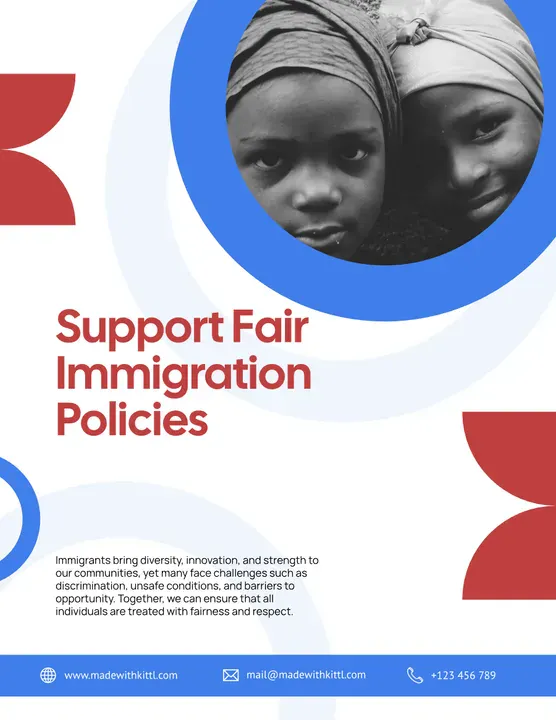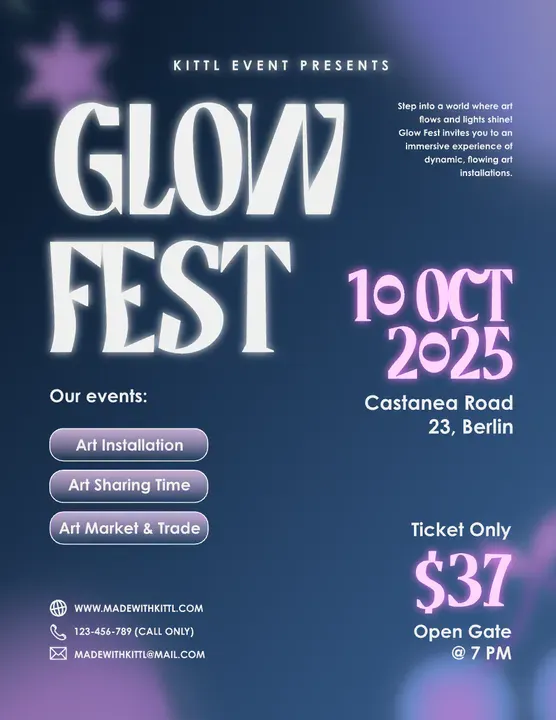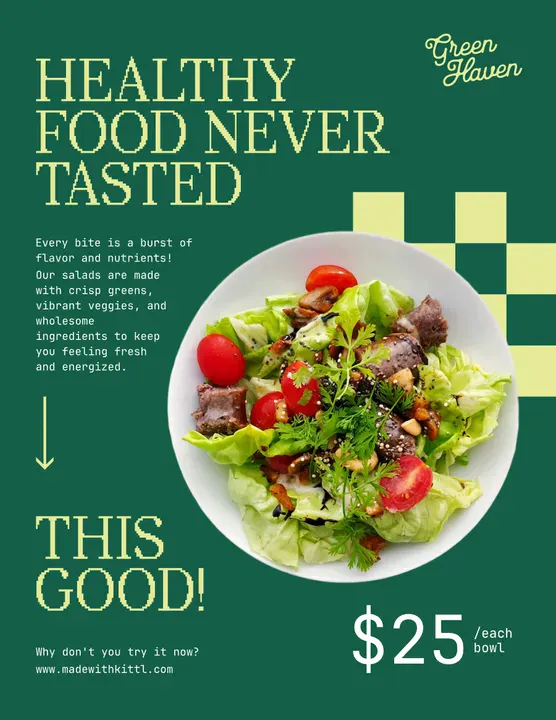
font pairing guide
Ever noticed how some designs just feel right, while others seem off, even if you cant quite put your finger on why?
A lot of that comes down to typography. Fonts do more than display words — they set the mood, create hierarchy, and shape how people perceive your message.
In fact, consistent typography can increase brand recognition by up to 80% according to Linearity. Thats huge! The fonts you choose arent just decorativetheyre a powerful tool that helps build trust, professionalism, and identity.
Think about it: a wedding invitation in Comic Sans wouldn’t exactly scream elegance. And a bold, heavy metal album cover using a delicate script or fun fonts? Probably not the best fit.
So if you’ve ever struggled with choosing the right fonts or doing your own calligraphy, don’t worry — you’re not alone. This guide will break down the basics of font pairing, show you what works (and what doesn’t), and give you practical tips to make your designs look polished every time.
Let’s jump in!
What is font pairing?
Font pairing is just matching fonts that look good together. It’s all about finding the right balance. Whether that’s mixing bold with simple, modern with classic, or even two totally different styles that just work. A good combo makes your design easy to read, eye-catching, and full of personality.
5 unlikely font pairings that shouldn’t work — but do
Think clashing styles can’t mix? These unexpected font combos aesthetic prove that contrast can be bold, stylish, and surprisingly effective.
01. Cal Sans Semibold, Manrope Regular, and PT Sans Regular
Cal Sans Semibold + Manrope Regular + PT Sans Regular font pair in a support fair immigration policies poster - Kittl
Cal Sans Semibold + Manrope Regular + PT Sans Regular is a killer combo for formal posters that need to be bold but easy to read.
Cal Sans Semibold’s sharp, structured letterforms make sure the headline grabs attention, while Manrope Regular keeps the body text smooth and effortless to scan. Then there’s PT Sans Regular, with its 40px line height, making sure everything has breathing room — because nobody can read a crammed-up text.
Set this trio against a white background, and you’ve got a clean, high-contrast layout where every letter stays crisp and clear. Thanks to strong ascenders, clear counters, and well-balanced spacing, this pairing works at any size, ensuring your message actually gets read — not just glanced over.
02. Kame Poster Black & Century Gothic Bold
Kame Poster Black & Century Gothic Bold font pair in a Glow Fest poster - Kittl
If youre going for that glow-fest, psychedelic-but-edgy vibe, pairing Kame Poster Black with Century Gothic Bold is a solid move.
Kame Poster’s chunky, almost wavy letterforms bring a sense of movement and fluidity, making it feel more dynamic than your typical blocky display font. It holds up against neon outer glows, color dodge overlays, and blurred gradients, keeping the headline bold and attention-grabbing. Meanwhile, Century Gothic’s smooth, circular shapes ground the design, ensuring the details stay crisp and legible.
Set it against a deep gradient background — electric blues, purples, or cyberpunk magentas — and the whole thing comes alive. This pairing isn’t just about standing out; it’s got energy, contrast, and just the right amount of free-flowing rhythm, making it perfect for festival posters or any design that needs to feel bold, electric, and full of movement.
03. Ynsect Moksha Regular & Public Sans Regular
Ynsect Moksha Regular & Public Sans Regular font pair in an act for climate justice poster - Kittl
Climate Justice Flyer Design. Use Template
Ever seen a poster that just hits differently — like it’s calling for action right then and there?
That’s the kind of energy you get when you pair Ynsect Moksha Regular with Public Sans Regular. Ynsect Mokshas jagged, distressed letterforms bring a raw, rebellious feel perfect for making a statement about resistance, urgency, or systemic issues.
Meanwhile, Public Sans Regular keeps things cold and bureaucratic, almost like it belongs in a legal document or a government report.
That contrast — gritty protest lettering against the clean, institutional text — creates just the right amount of tension, making the message hit harder. Want to push the vibe even further? Go for high-contrast black and white with bold red accents, mimicking stencil markings, case files, or warning labels.
04. BIT Nostalgic Regular & Jet Brains Mono Regular
BIT Nostalgic Regular & Jet Brains Mono Regular font pair in a healthy food promotional poster - Kittl
Now that you’ve got a solid grasp of how to combine fonts effectively, it’s time to put your knowledge to work. Play around with different typefaces, test out new font combinations, and most importantly — have fun with it!